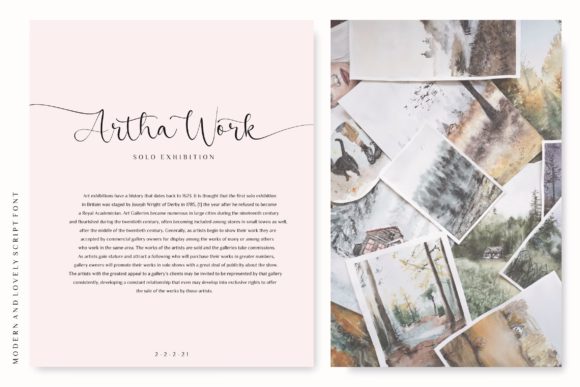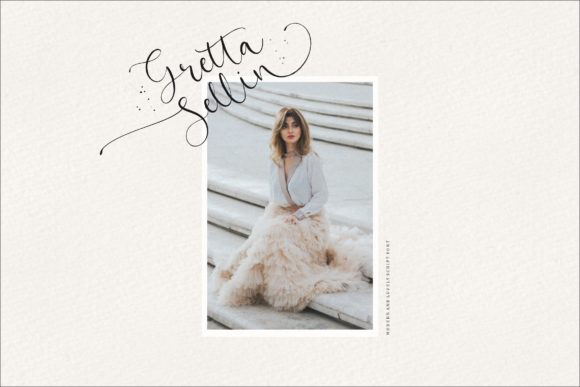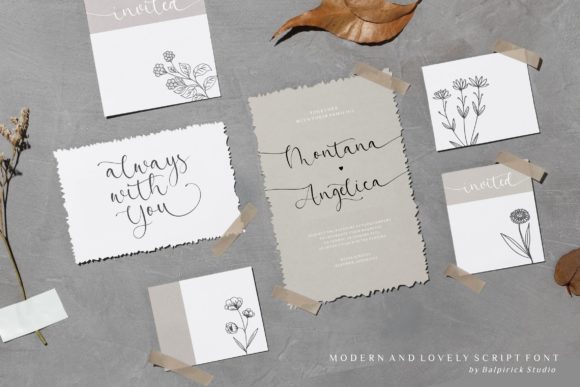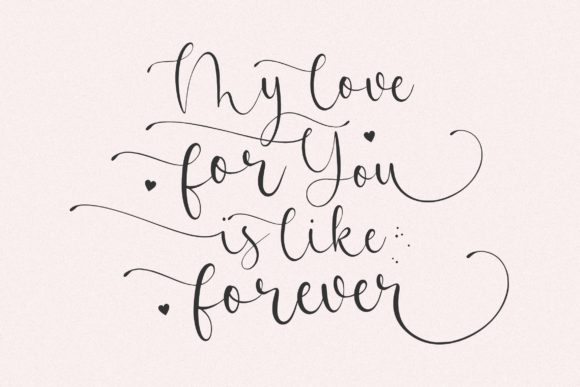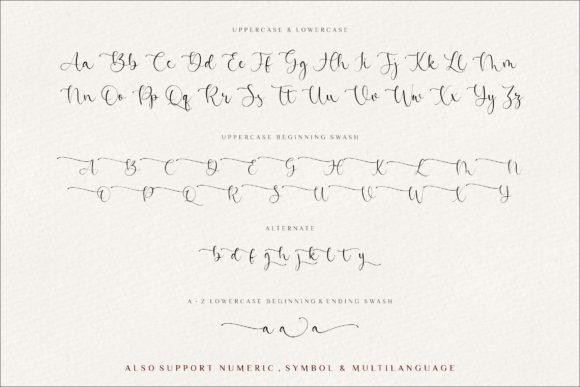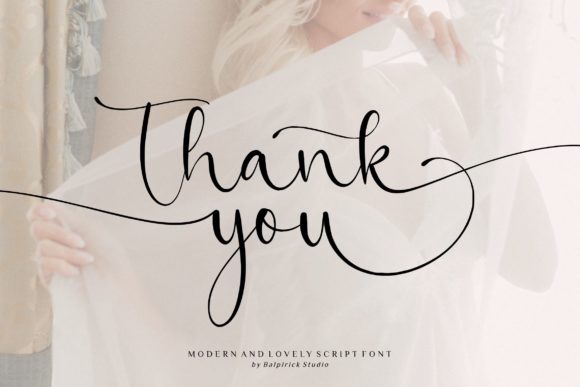
Introducing Beatrica Font: Elevate Your Designs with Elegance
In the world of typography, a font can make or break a design. For designers and crafters seeking a touch of sophistication and delicacy, the Beatrica Font is an excellent choice. This stylish and delicate font is poised to become a favorite for anyone looking to add a clean, thin, and smooth vibe to their projects.
What Makes Beatrica Font Stand Out?
Beatrica Font boasts a unique blend of elegance and simplicity, making it versatile for a wide range of design applications. Whether you’re working on a branding project, crafting beautiful wedding invitations, or designing engaging social media graphics, Beatrica is up to the task. Its clean lines and thin strokes ensure that your designs look modern and uncluttered, while its smooth vibe adds a layer of sophistication that’s hard to achieve with more ornate fonts.
One of the standout features of Beatrica Font is its PUA (Private Use Area) encoding. This means that accessing the font’s extensive range of glyphs and swashes is incredibly straightforward. For designers, this is a game-changer. You can easily incorporate intricate details and flourishes into your work without the hassle of navigating complex character maps or relying on external design tools.
The PUA encoding ensures that you have complete creative control over your typography. Whether you’re looking to add a simple elegance to your text or create a more intricate design with multiple swashes, Beatrica Font makes it easy to achieve your vision.
Versatility for Designers and Crafters
Beatrica Font’s versatility is one of its most compelling attributes. Designers can use it to create stunning visual identities for brands, while crafters can incorporate it into handmade projects such as greeting cards, scrapbooking, and more. The font’s readability and aesthetic appeal make it suitable for both digital and print projects.
For digital projects, Beatrica Font can elevate your website’s typography, making it more engaging and professional. When it comes to print, it can add a touch of class to business cards, brochures, and posters. The possibilities are endless, and the font’s adaptability ensures that it can be seamlessly integrated into your existing design workflow.
Why Choose Beatrica Font?
- Elegant Design: Beatrica Font offers a stylish and delicate look that’s perfect for designs requiring a touch of sophistication.
- Clean and Smooth: Its clean lines and smooth vibe make it ideal for modern designs.
- PUA Encoded: Easy access to glyphs and swashes for enhanced creativity.
- Versatile: Suitable for a wide range of design projects, from digital graphics to print materials.
- User-Friendly: Incorporate into your design workflow with ease, regardless of your project’s requirements.
Beatrica Font is more than just a typeface; it’s a design tool that can elevate your projects to new heights of elegance and sophistication. With its clean, thin, and smooth design, coupled with the convenience of PUA encoding, it’s an excellent choice for designers and crafters looking to make a lasting impression. Whether you’re working on a personal project or a client’s commission, Beatrica Font is sure to become an indispensable part of your design arsenal.